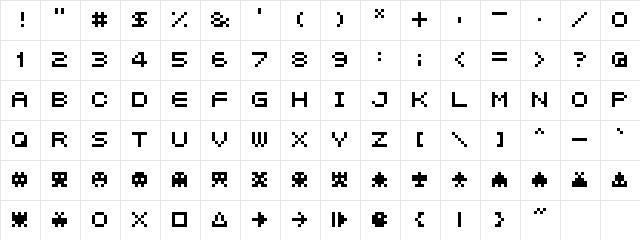
04b_21 Regular
Design Context for 04b_21 Typeface
04b_21 takes a measured approach to typography — its balanced proportions and neutral character make it a reliable workhorse for both digital and print work.
Pro Tip: Use 04b_21 in both headline and body roles to test its range before committing to a single application.